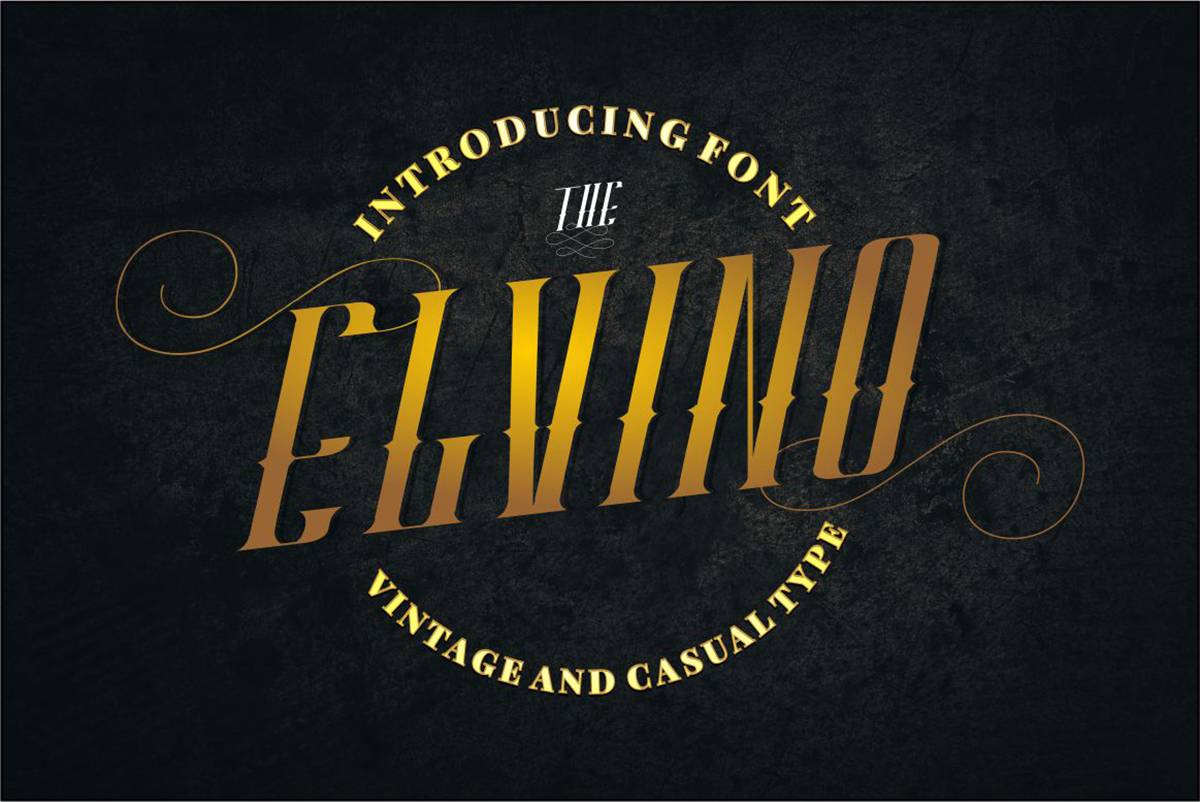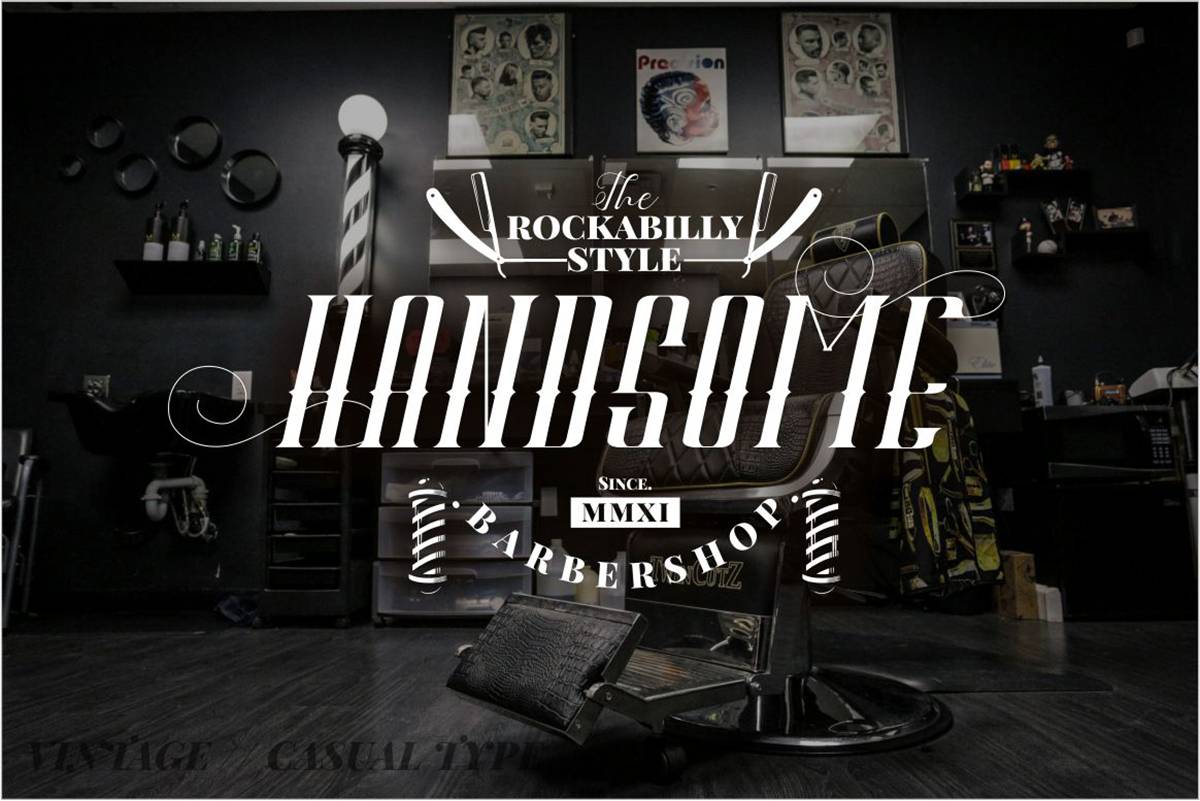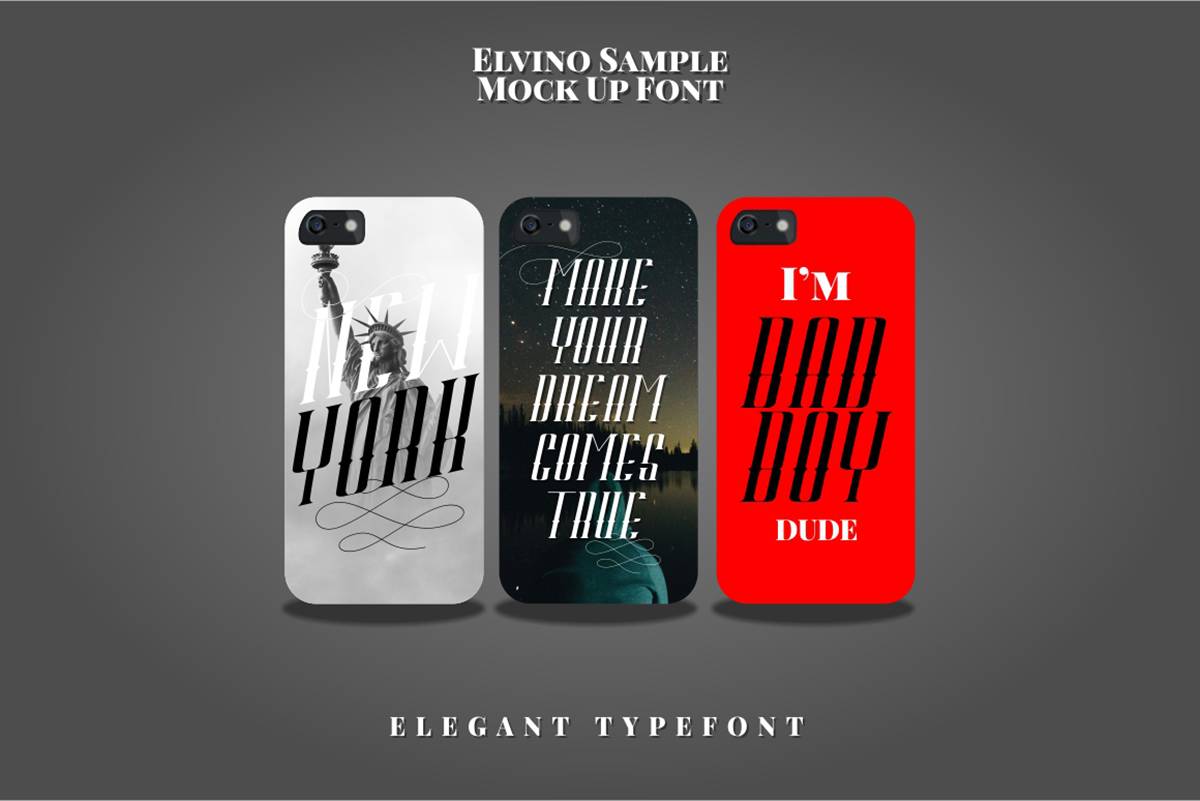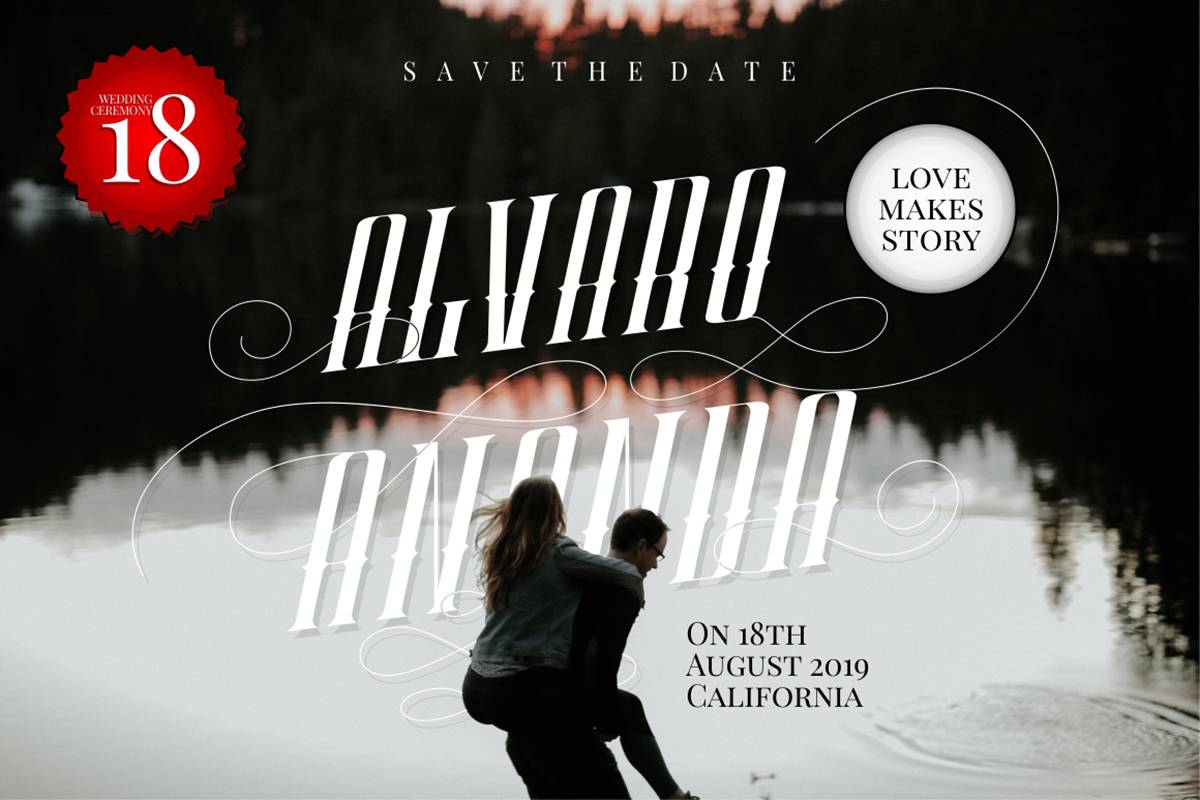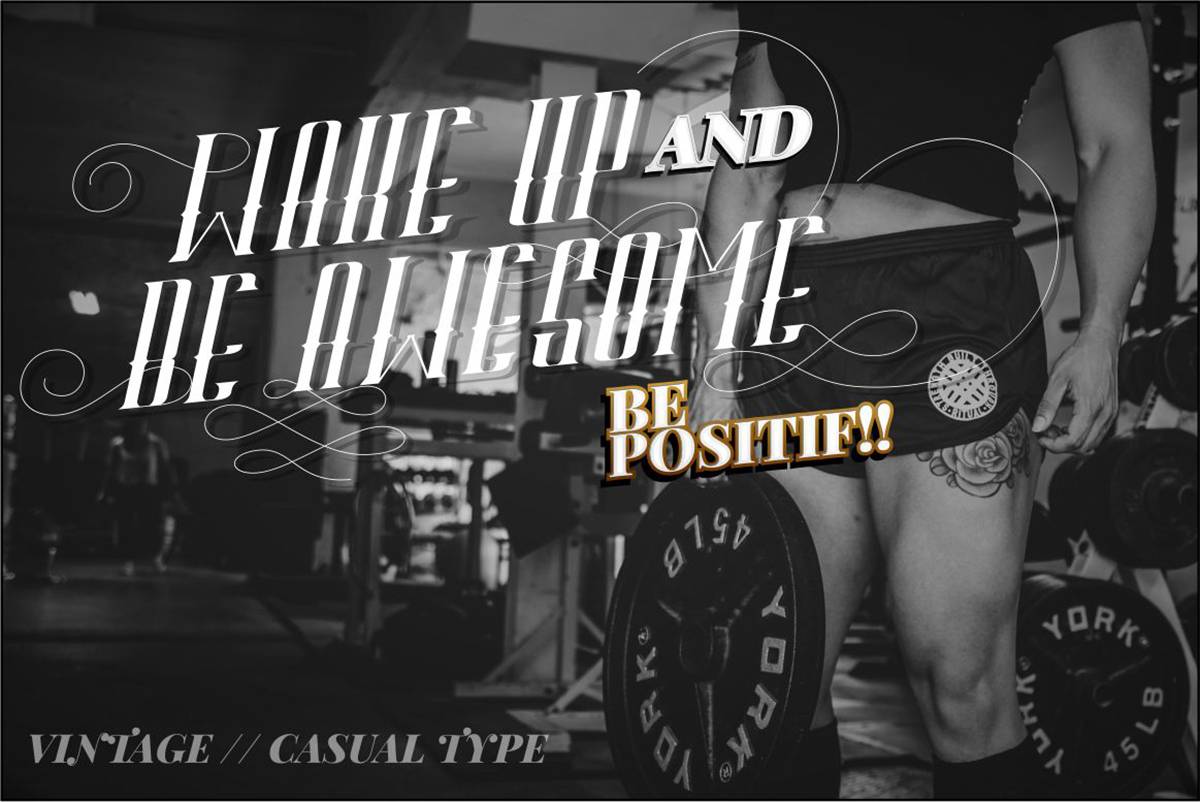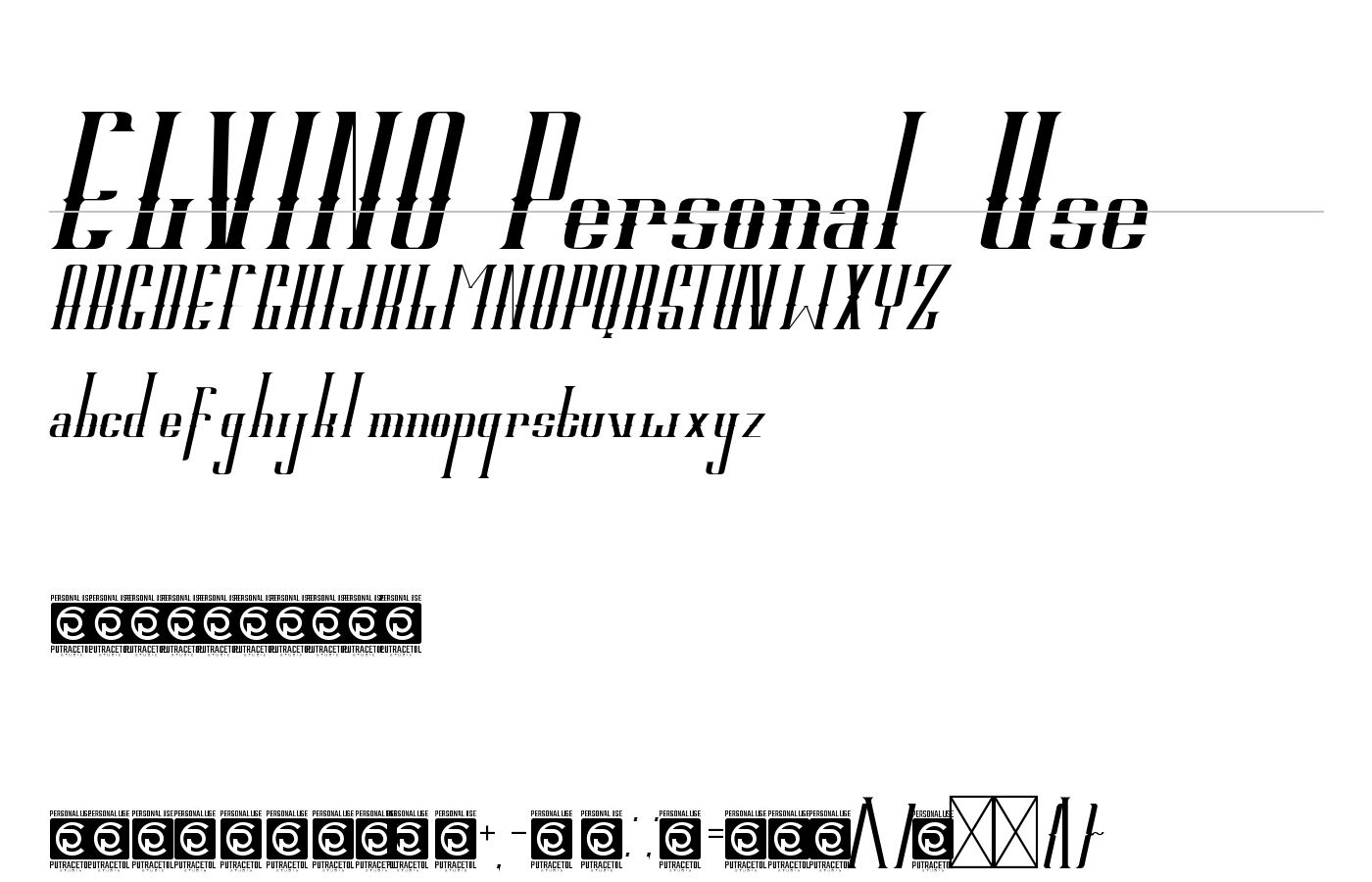
Elvino is a narrow, high-contrast serif typeface with a sharp, elegant style that leans heavily toward a vintage or art deco aesthetic. Its tall, condensed letterforms and unique detailing in strokes and terminals give it a refined, dramatic personality, making it ideal for luxury branding, fashion headlines, and editorial uses where a sophisticated, eye-catching look is desired.
Elvino Font
About Elvino Font
| Font family | Elvino Font |